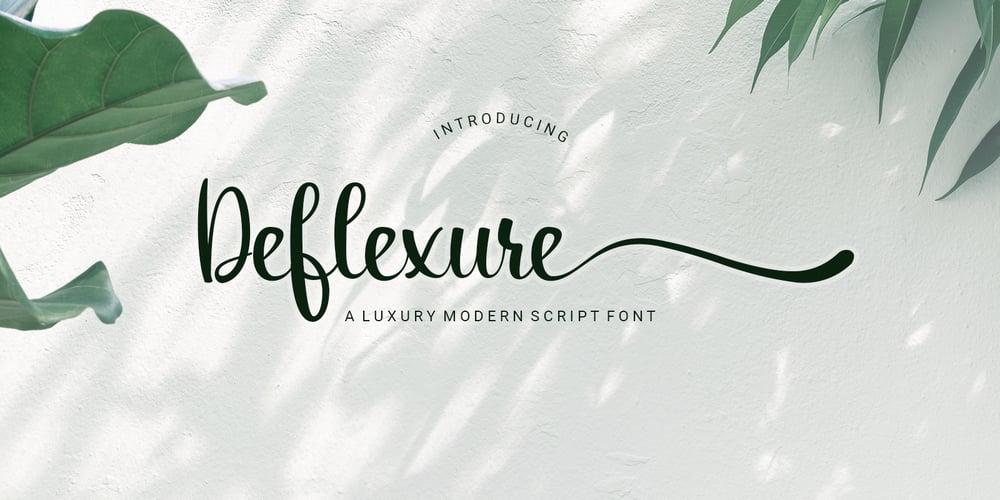
Deflexure Font Family was designed by Jony Suharsono and published by Ony Studio. Deflexure contains 1 styles and family package options. Features: Characters: Uppercase letters, Lowercase letters, numbers & extended punctuation Ligatures and Stylistic Alternates Non-English support for the international designer Deflexure is a luxury modern script font. This font is perfect for wedding event design, such as wedding invitations, wedding event organizer logo, and any design related to weddings.This font is also perfect for writing quotes, print-on-demand design like t-shirts and mugs.Each lowercase font also has alternates for each letter, so when you type lowercase for each font, the letters will have other style options.